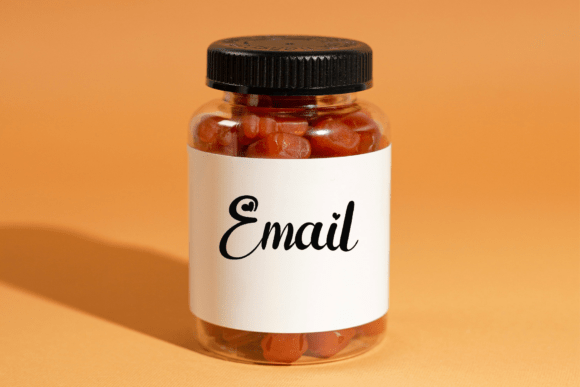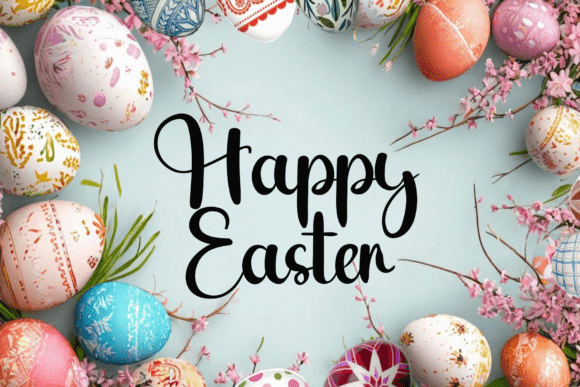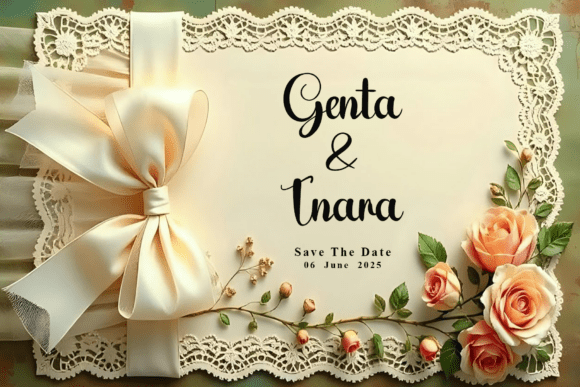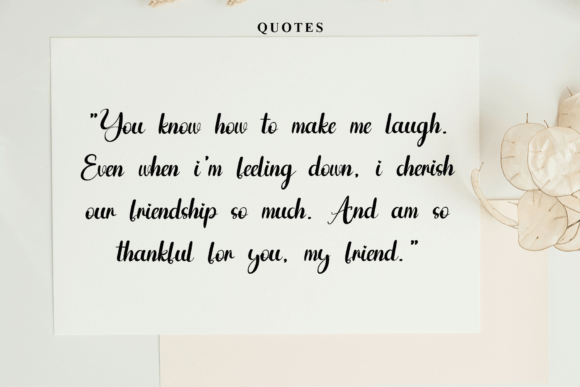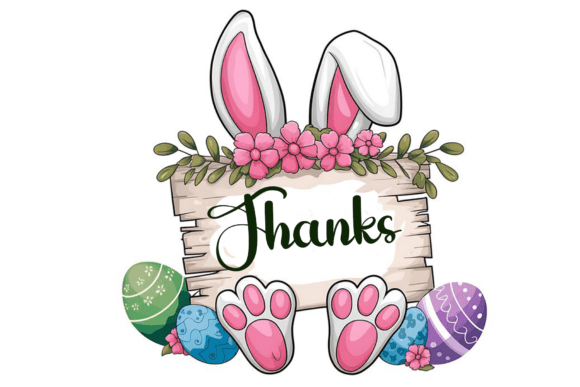
The Easter Font: A Beautiful Handwritten Style for Your Creative Projects
The Easter font is a beautiful handwritten font with a natural, flowing style that looks like elegant cursive writing. It’s perfect for adding a personal and stylish touch to invitations, logos, and social media posts.
An Honest Review of the Easter Font
- 💫 The Easter font has a unique, hand-crafted feel that adds a touch of warmth and personality to any design.
- ✅ It’s incredibly versatile and works well for both digital and print projects.
- 🌈 The font comes with a range of OpenType features, including glyphs and stylistic alternates, which allow for endless creative possibilities.
- 📚 It’s perfect for creating eye-catching headings, titles, and quotes that will make your designs stand out.
- ⚠️ The Easter font can be a bit tricky to read at very small sizes, so it’s best used for headlines or titles rather than body text.
- 🤔 Some of the glyphs and special characters can be a bit finicky to access, but with a little practice, you’ll get the hang of it!
The Designer Inspiration Behind the Easter Font
The Easter font was designed by a talented typographer who wanted to create a font that would evoke the feeling of springtime and new beginnings. Inspired by traditional handwriting and elegant cursive scripts, the Easter font is a beautiful addition to any design project.
| Font Name | Easter Font |
| Author | pinkmeca |
| What is the Easter font? | The Easter font is a beautiful handwritten font with a natural, flowing style that’s perfect for adding a personal and stylish touch to invitations, logos, and social media posts. |